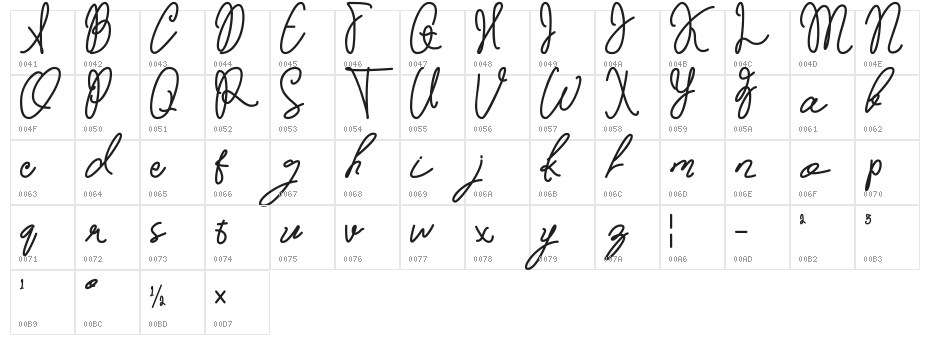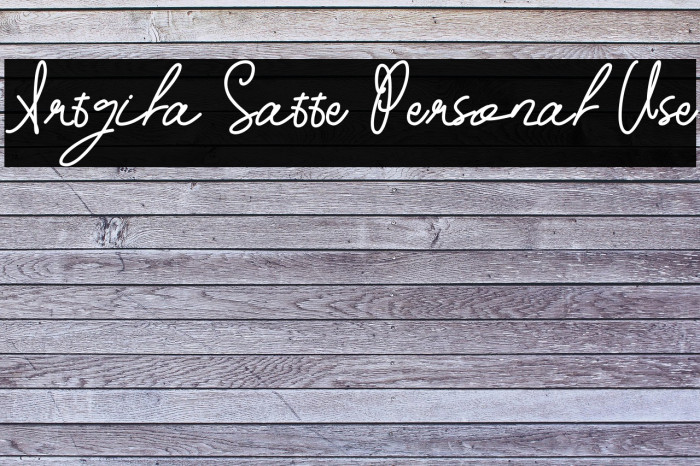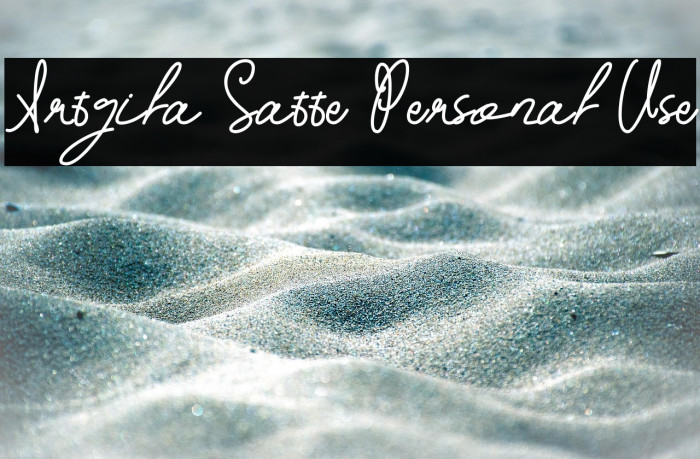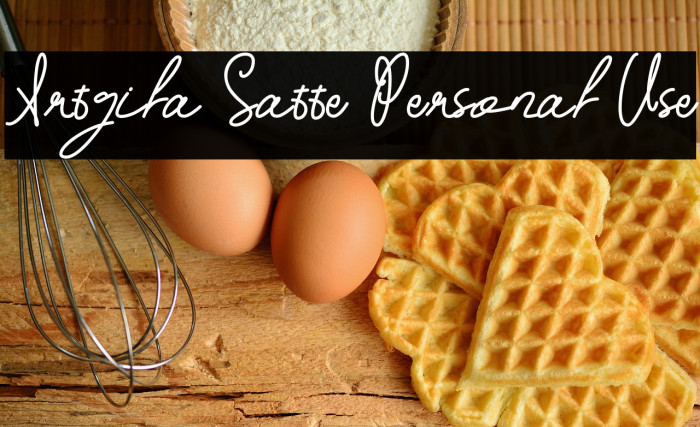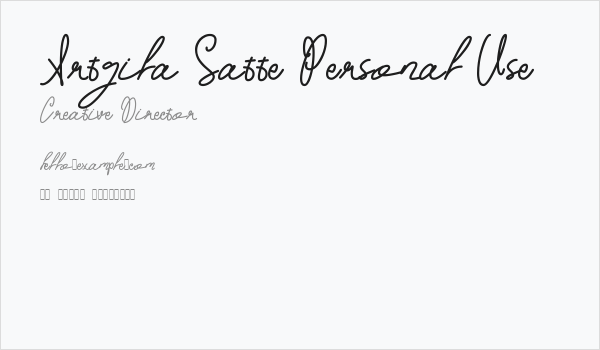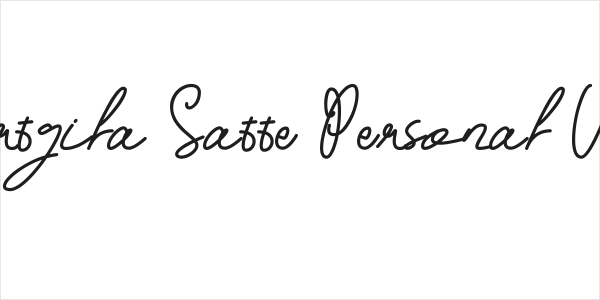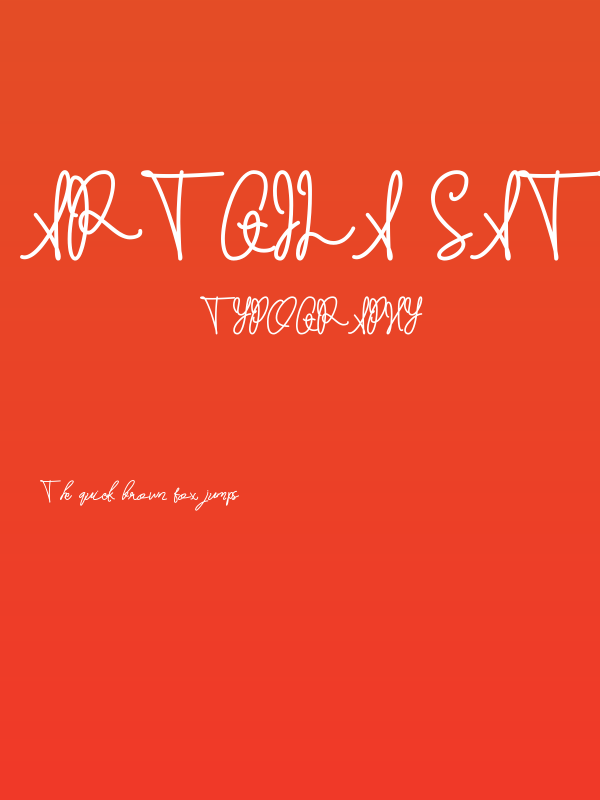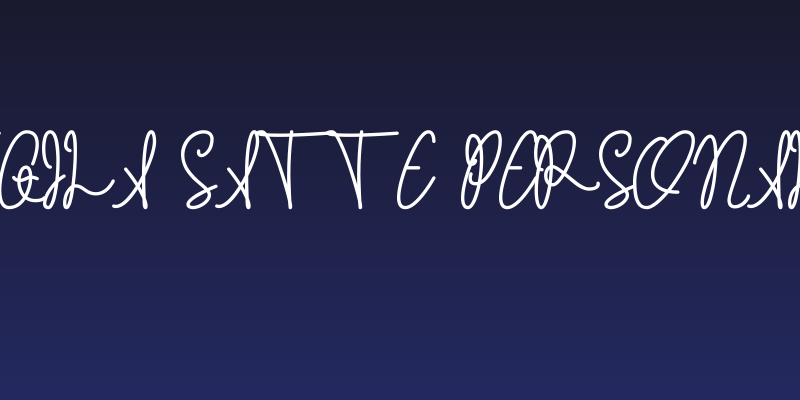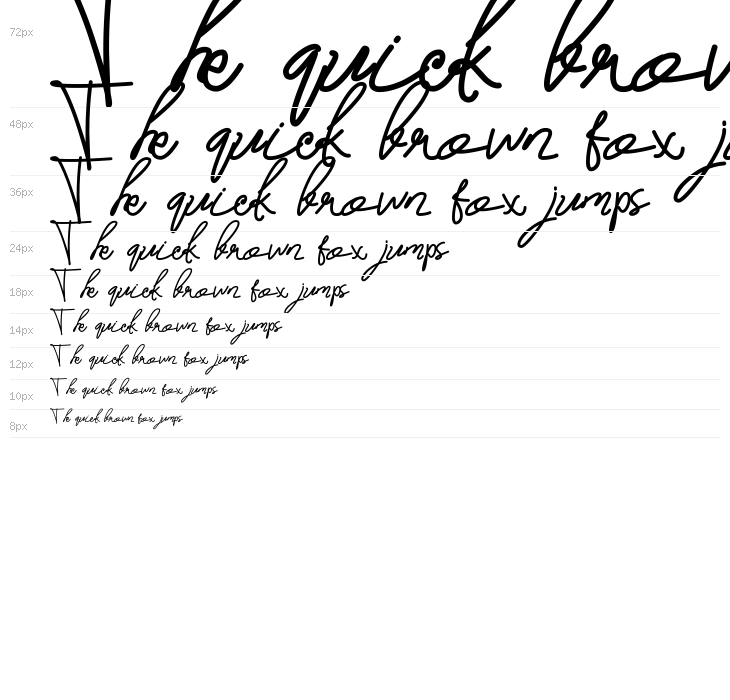
Artgila Satte Personal Use Font
Artgila Satte Personal Use Description
This font features an elegant and flowing script style, characterized by its cursive, handwritten appearance. The letters are interconnected, creating a seamless and fluid look that is both sophisticated and artistic. The uppercase letters exhibit a graceful looped design, while the lowercase letters maintain a consistent flow with varying stroke thickness. This font exudes a personal and intimate feel, making it ideal for projects that require a touch of elegance and individuality. The overall design is balanced, with each character maintaining a harmonious relationship with the others, ensuring readability despite its decorative nature.
| Overall Style | Elegant, Artistic |
| Proposed Projects | Ideal for wedding invitations, personal branding, greeting cards, and elegant logos. |